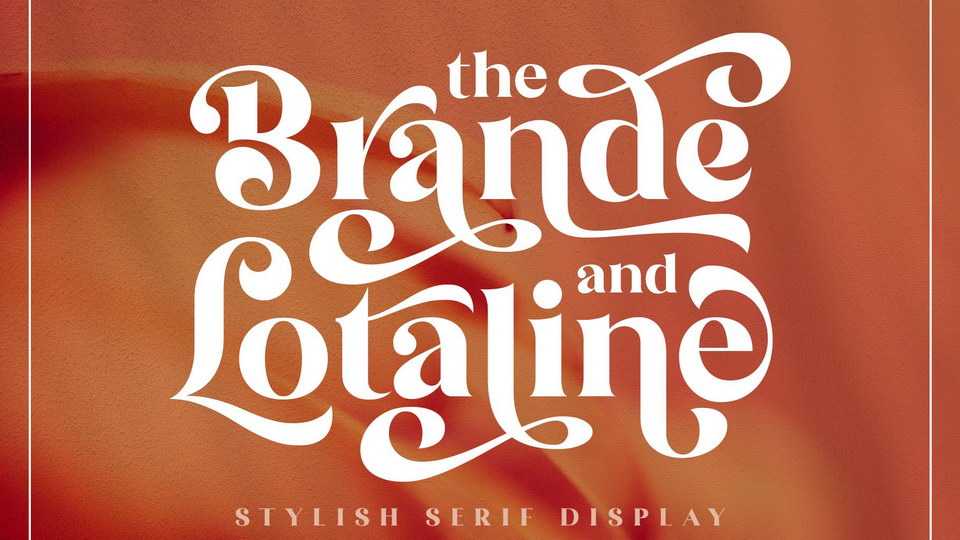
Download The Brande and Lotaline font, a classy modern serif typeface inspired by fashion and decorative typography. A beautiful bold serif specially designed for display use.